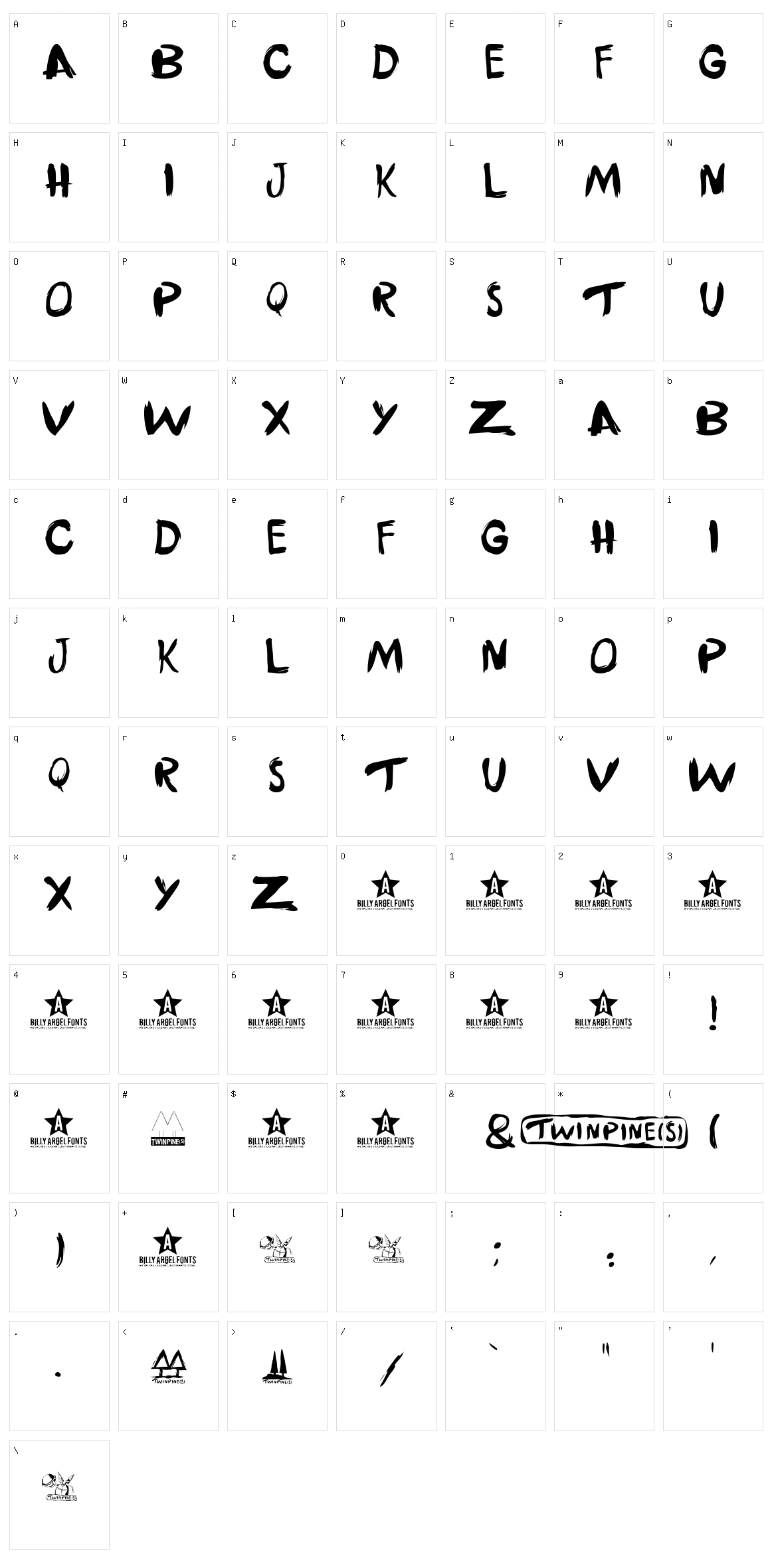
The free font Twinpines is carefully designed by Billy Argel Fonts ?, showcasing a thoughtful balance of creativity and usability and falls under the Script font style. When you download the ZIP file, it contains only 202.69 KB of font files, making it lightweight and quick to download. Please review the license details below to understand permitted usage and distribution rights. If license information is not available, we recommend using this font for personal projects only or contacting the author directly for commercial usage permissions.